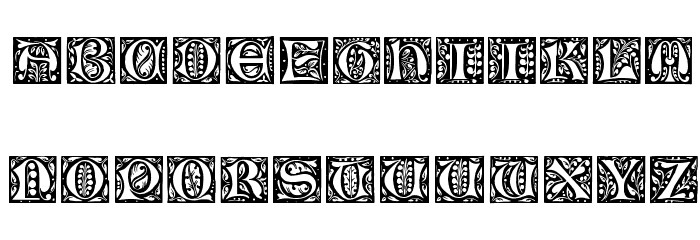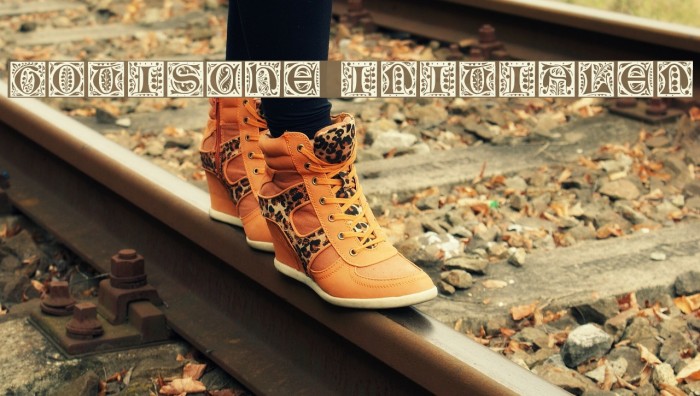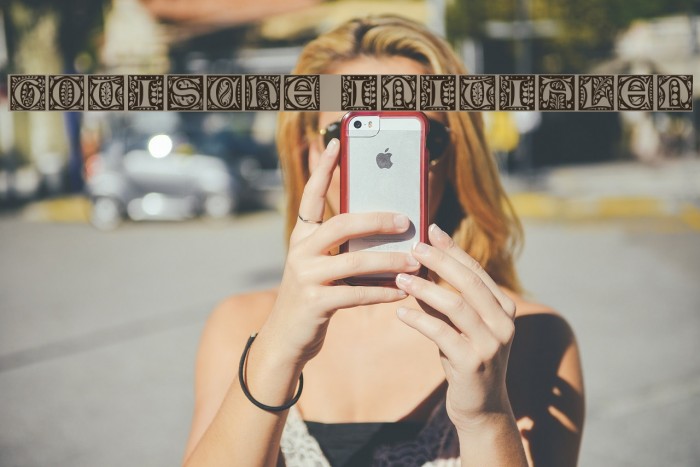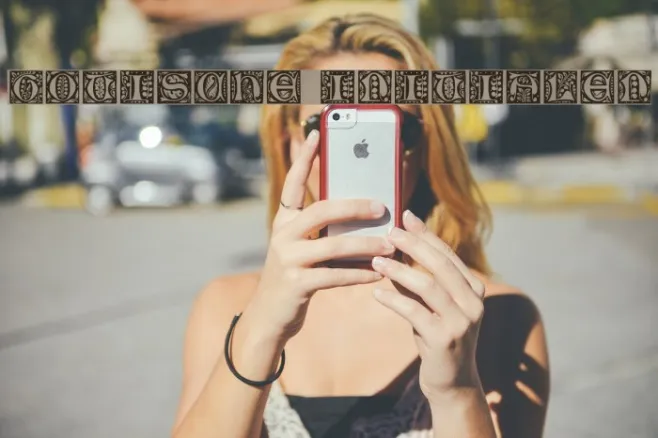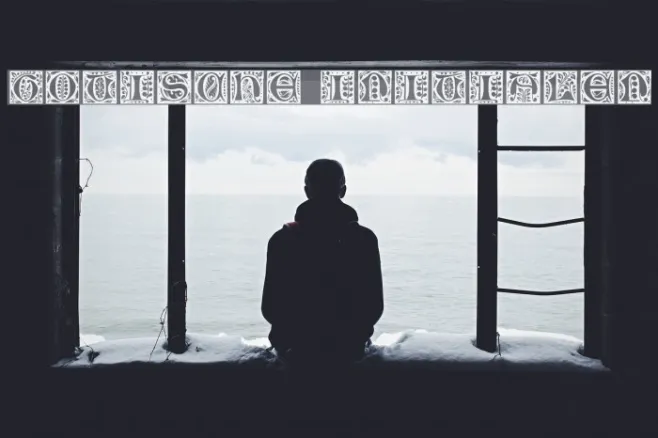
Gotische Initialen Font
This font is a highly decorative and ornate style, reminiscent of medieval manuscript initials. Each letter is enclosed in a square frame and adorned with intricate floral and vine motifs, creating a sense of elegance and historical charm. The design is bold and striking, with a strong emphasis on the decorative elements that fill the interior of each letter. The overall appearance is both artistic and elaborate, making it suitable for projects that require a touch of vintage sophistication.
An ornate, medieval-inspired decorative font with intricate floral designs.
- Proposed Projects: Ideal for use in historical themed projects, wedding invitations, book covers, or any design requiring a vintage or medieval aesthetic.
- Overall Style: Vintage
- Use Case: Logos, Headlines, Decorative purposes